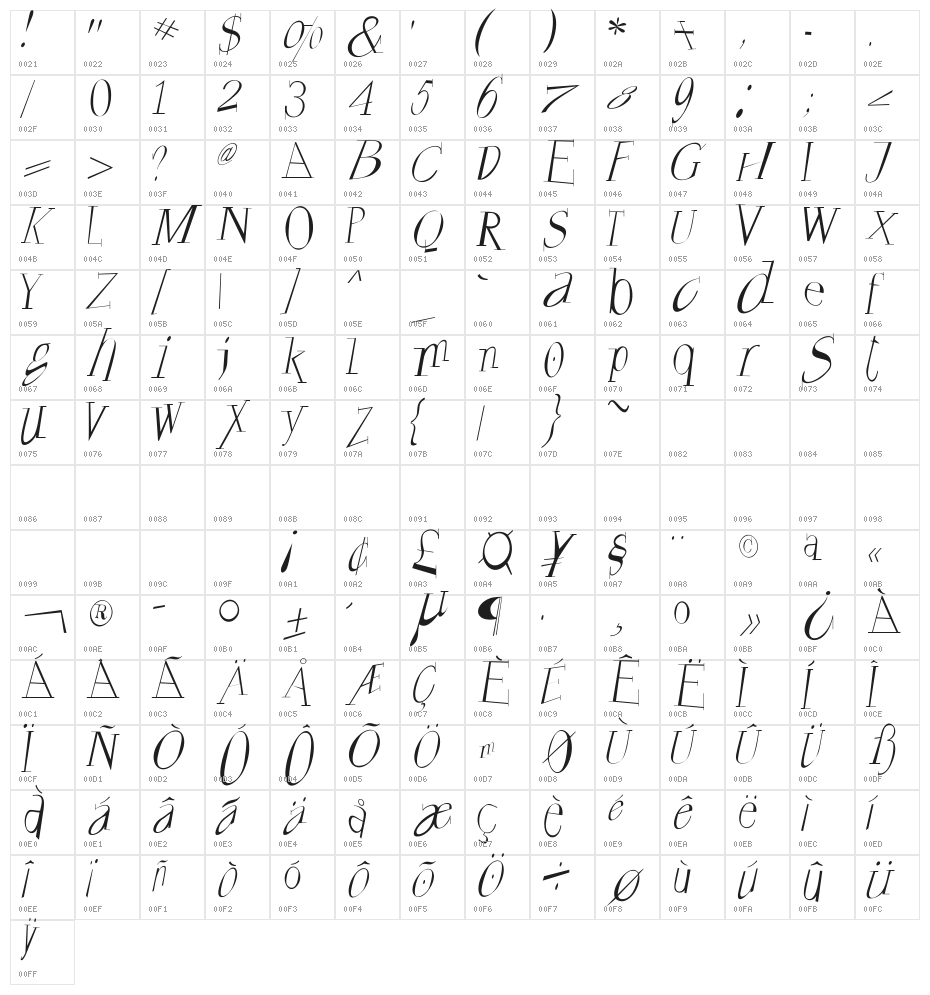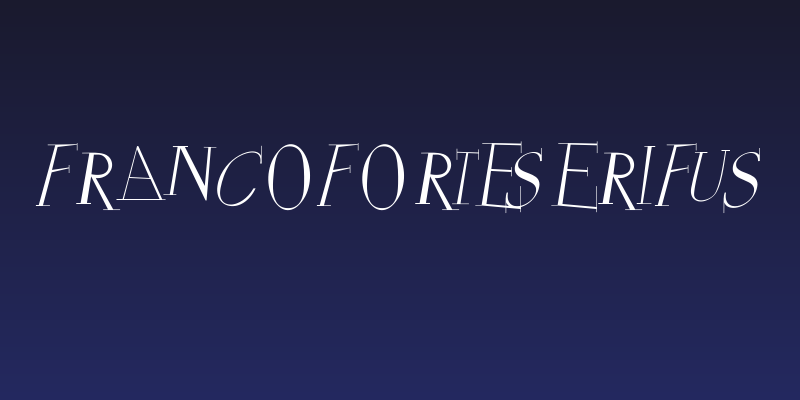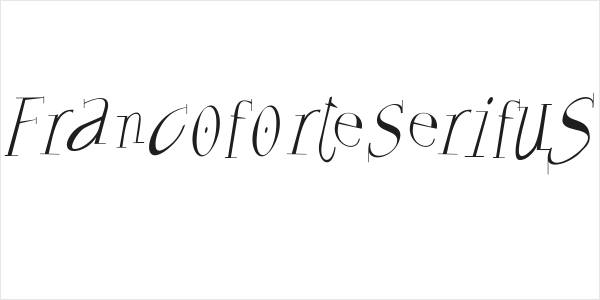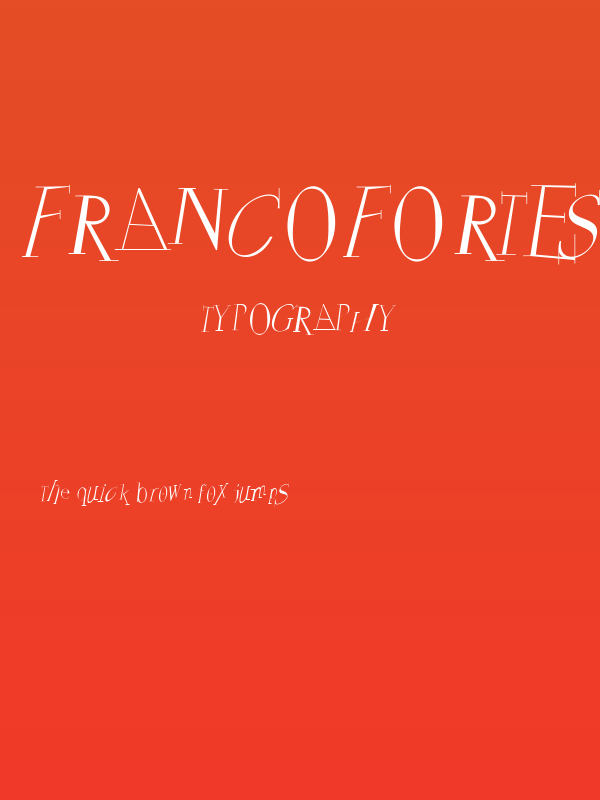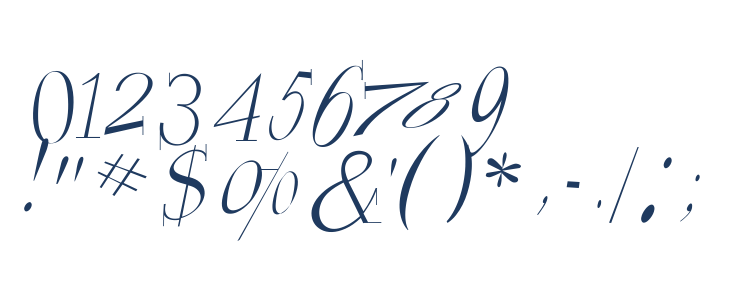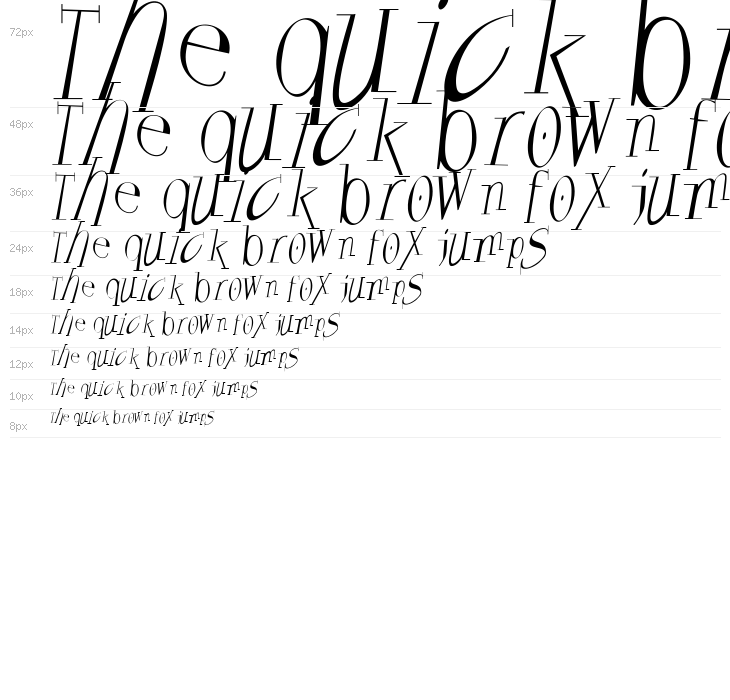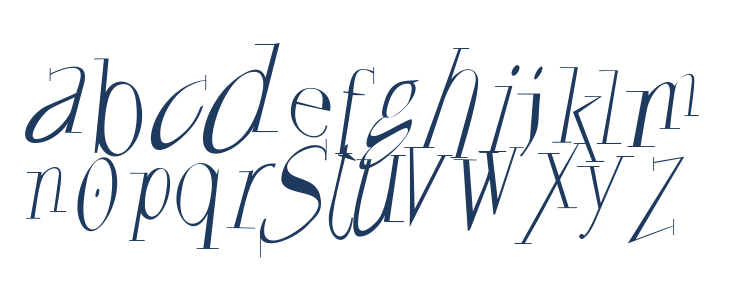
FrancoforteSerifus Font
FrancoforteSerifus Description
This font features a unique blend of elegance and modernity, characterized by its distinct serif elements and dynamic strokes. The uppercase letters exhibit a sophisticated flair with elongated serifs and a slight slant, giving them a sense of movement and grace. The lowercase letters maintain a consistent style, with smooth curves and a harmonious balance between thick and thin strokes. Numbers are designed with a similar aesthetic, ensuring readability while maintaining the font's artistic integrity. Special characters are thoughtfully crafted to complement the overall design, making this font versatile for various applications.